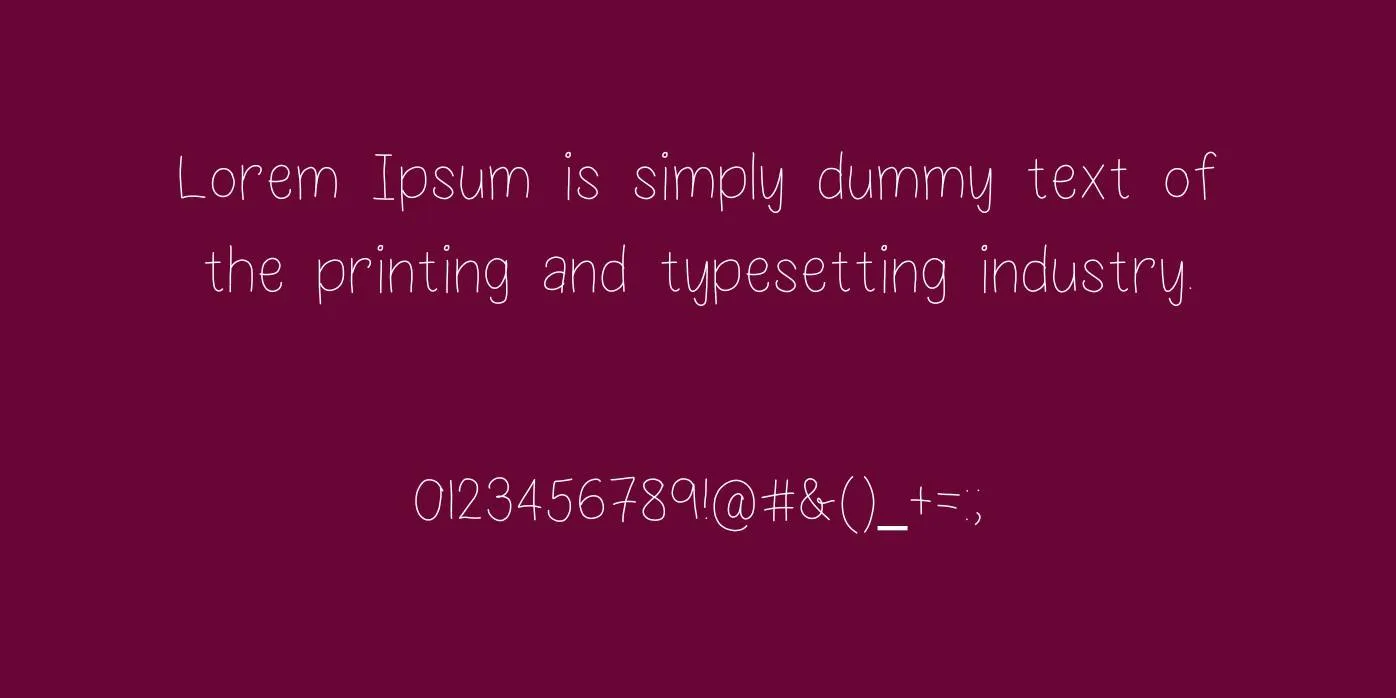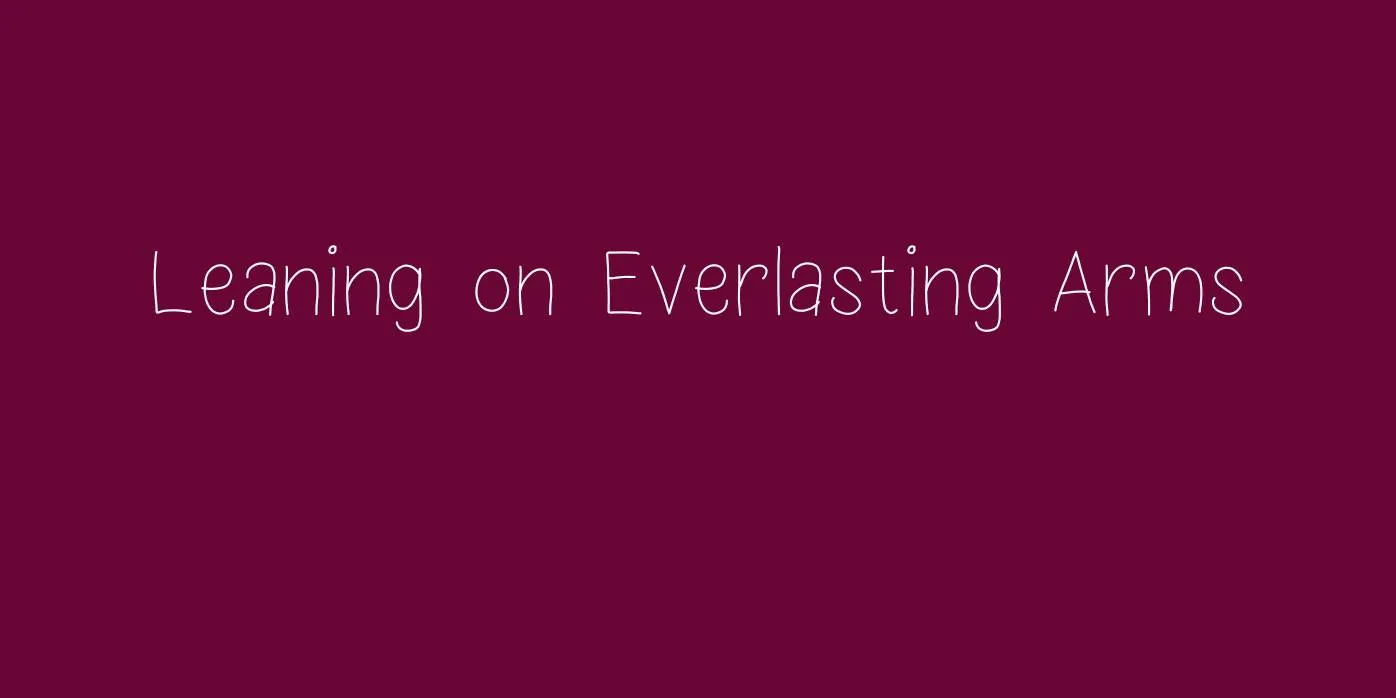
Leaning on Everlasting Arms Font
Today, you are going to read a fantastic handwritten type of font. Leaning on Everlasting Arms Font is a handwritten type of texture. Sabrina Schleiger is the designer of this texture. The characters of this texture are in lowercase letters, capital letters, special letters, numbers, and some punctuation marks.